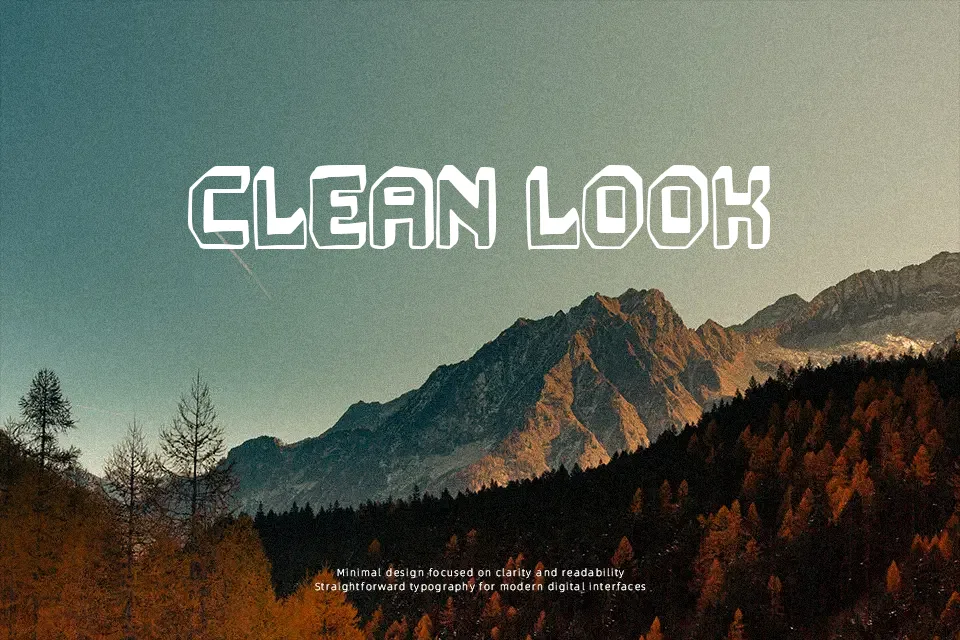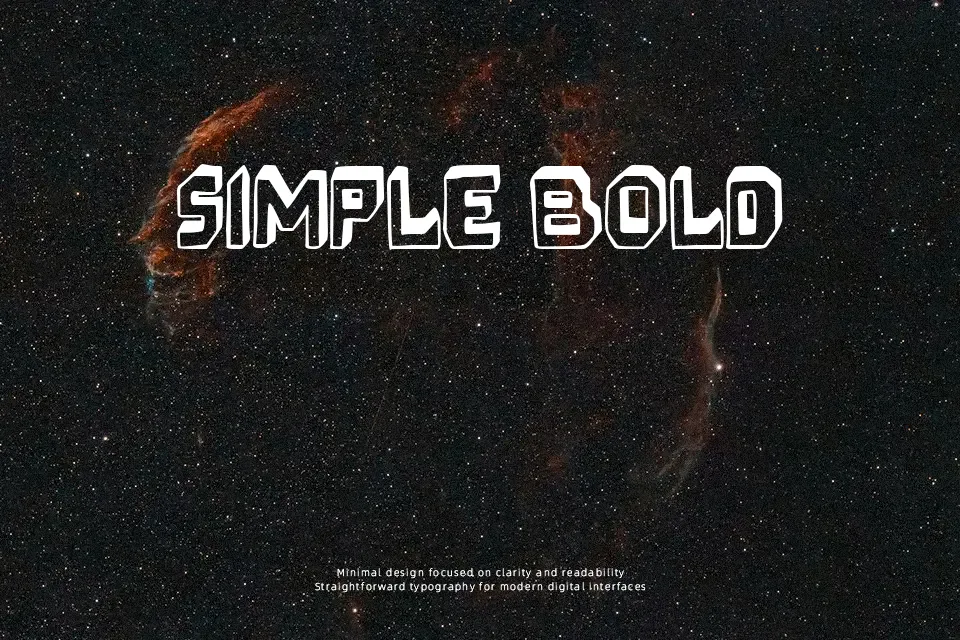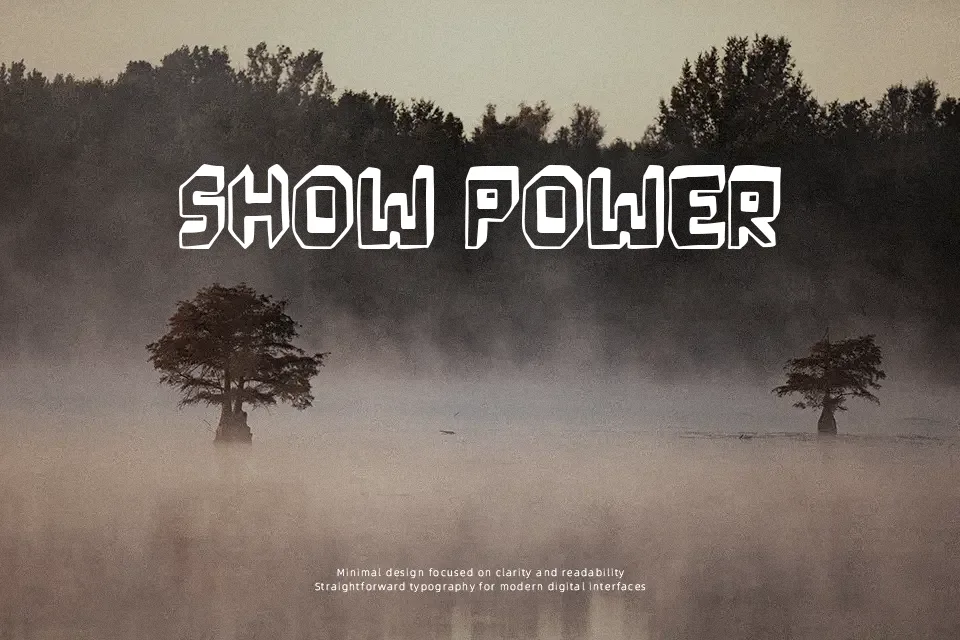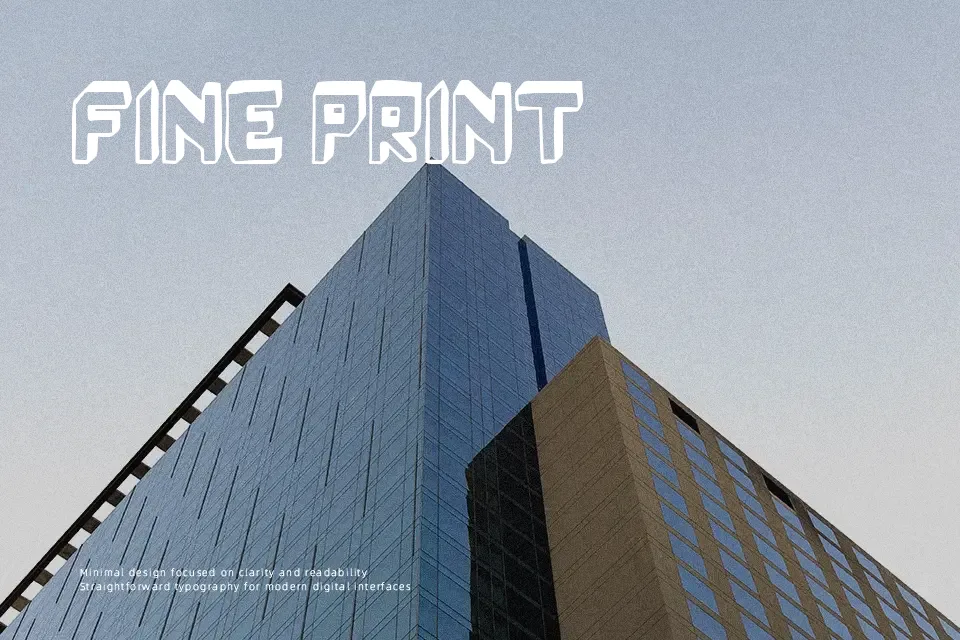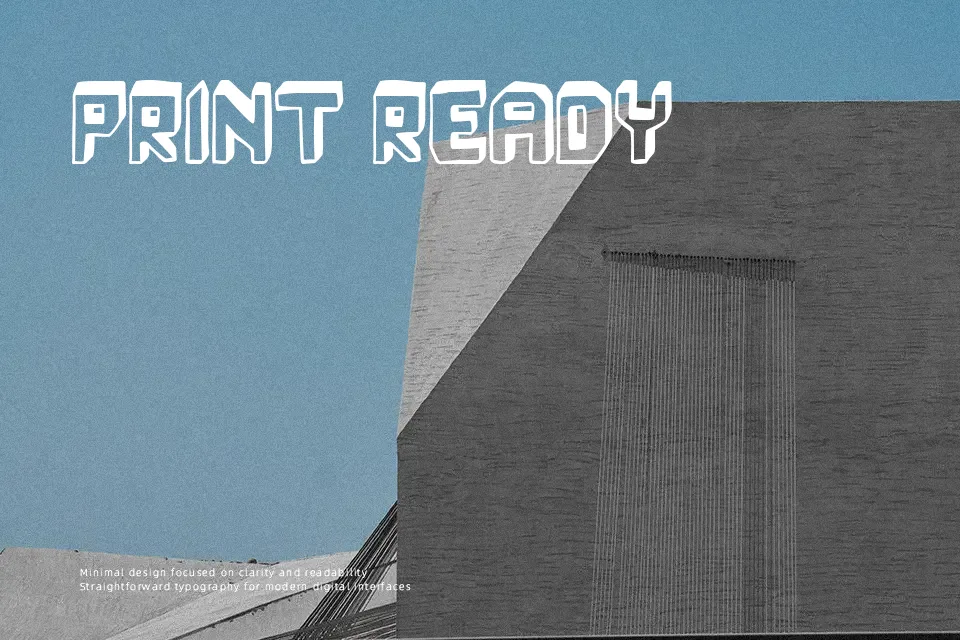
Space 3D Project Font
Space 3D Project Font works best as large display lettering, using bold outlined forms and offset interior lines to create a dimensional, technical appearance. The uppercase characters have broad, geometric proportions, while the construction stays visually consistent across letters and numerals. Spacing appears balanced enough for short words and titles, though the layered strokes make individual forms busier than a plain sans serif. It is a practical choice for posters, title screens, and packaging that needs a futuristic graphic presence. At smaller sizes, the internal detail is likely to reduce clarity.
Best For: futuristic poster headlines,video game title screens,technology event graphics,product packaging titles
Perfect for 3d, film, and gaming, with a bold and decorative style.